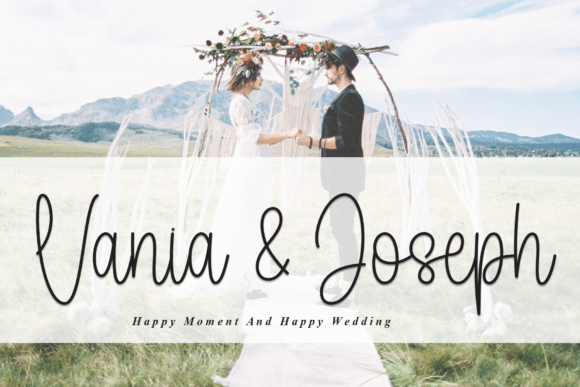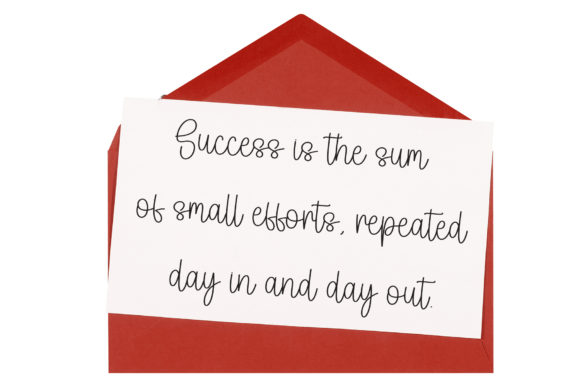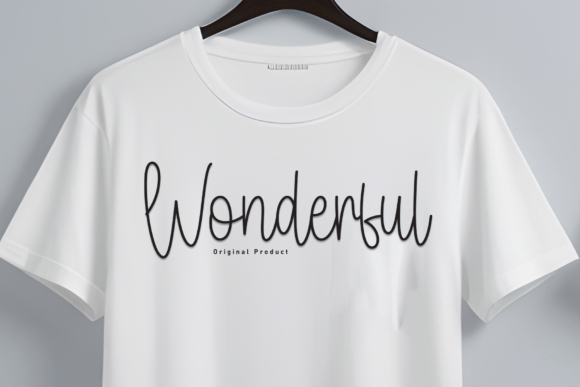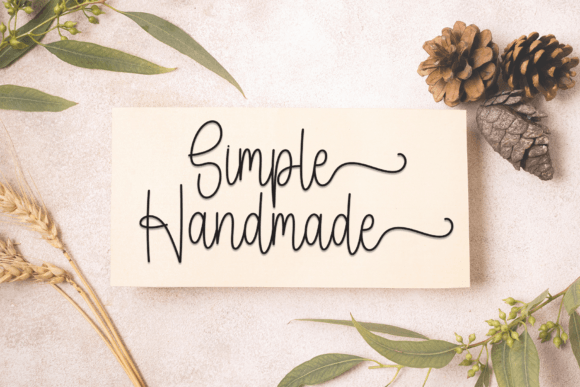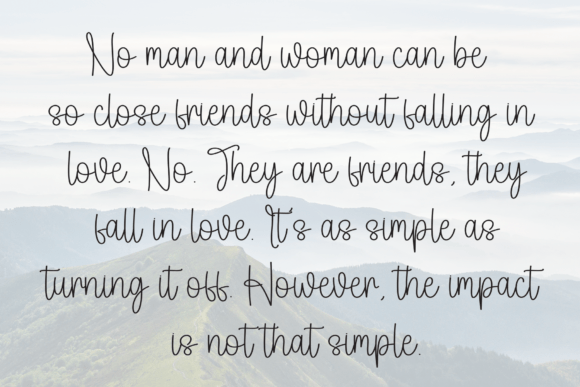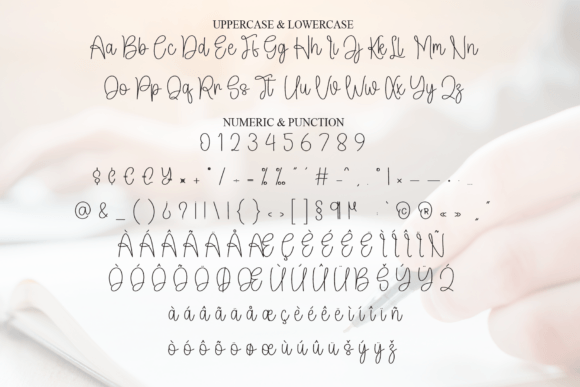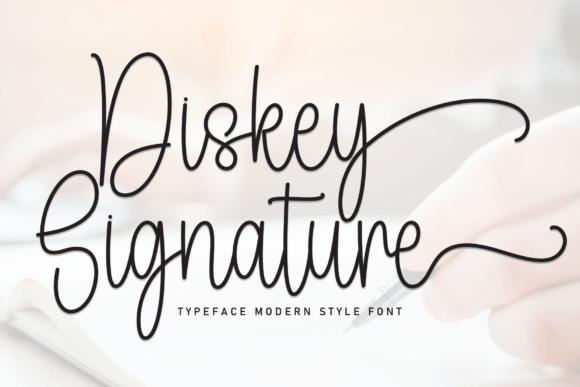
Introducing Diskey Signature Font: The Perfect Blend of Style and Personality
In the world of typography, a well-crafted font can make all the difference in conveying the tone and personality of a message. For designers and crafters looking for a stylish and handwritten font that exudes warmth and creativity, Diskey Signature is an excellent choice. This beautiful font is designed to look natural and personal, making it perfect for a variety of projects, from invitations and notes to branding and marketing materials.
The Characteristics of Diskey Signature Font
Diskey Signature is a stylish handwritten font that features smooth, flowing letters that give a friendly and casual feel. The font’s natural and personal look makes it ideal for projects where you want to add a touch of warmth and personality. The letters are carefully crafted to create a sense of movement and fluidity, giving the font a dynamic and energetic feel.
What Makes Diskey Signature Font Stand Out
So, what sets Diskey Signature apart from other fonts? Here are a few key characteristics that make it a standout:
• Natural and Personal Look: Diskey Signature has a unique, handwritten look that is both natural and personal. The font’s imperfections and quirks give it a charming, human touch that is hard to replicate with digital fonts.
• Smooth and Flowing Letters: The font features smooth, flowing letters that are carefully crafted to create a sense of movement and fluidity. This makes it perfect for projects where you want to convey a sense of energy and dynamism.
• Warm and Inviting Feel: Diskey Signature has a warm and inviting feel that makes it perfect for projects where you want to add a touch of personality and warmth. Whether you’re creating invitations, notes, or marketing materials, this font is sure to make a lasting impression.
• Versatile and Flexible: Diskey Signature is a versatile font that can be used for a wide range of projects. Whether you’re creating digital or print materials, this font is sure to adapt to your needs.
Uses for Diskey Signature Font
So, what can you use Diskey Signature for? The possibilities are endless! Here are a few ideas to get you started:
• Invitations: Diskey Signature is perfect for creating beautiful, personalized invitations for weddings, parties, and other special events.
• Notes and Letters: Add a touch of warmth and personality to your notes and letters with Diskey Signature.
• Branding and Marketing: Use Diskey Signature to create unique and eye-catching branding and marketing materials, such as logos, brochures, and business cards.
• Digital and Print Materials: Diskey Signature can be used for a wide range of digital and print materials, including social media graphics, ebooks, and magazines.
Tips for Using Diskey Signature Font
Here are a few tips for getting the most out of Diskey Signature:
• Experiment with Different Sizes and Colors: Diskey Signature looks great in a variety of sizes and colors. Experiment with different combinations to find the one that works best for your project.
• Pair it with Other Fonts: Diskey Signature pairs well with a variety of other fonts. Try pairing it with a bold, sans-serif font for a striking contrast.
• Use it for Headings and Titles: Diskey Signature is perfect for headings and titles, where its unique and eye-catching style can really shine.
In conclusion, Diskey Signature is a stylish and handwritten font that is perfect for designers and crafters looking for a natural and personal look. With its smooth, flowing letters and warm, inviting feel, this font is sure to add a touch of personality and warmth to any project. Whether you’re creating invitations, notes, or marketing materials, Diskey Signature is a versatile and flexible font that is sure to meet your needs.